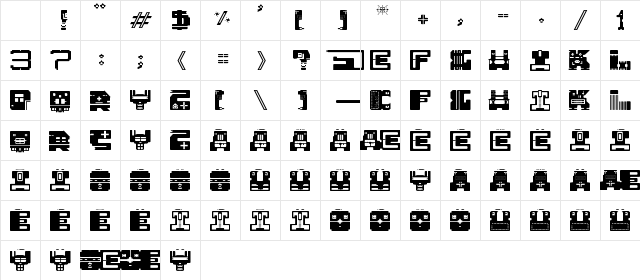
AFT1 Heterodoxa Regular
Designer: neurone error
Design Context for AFT1 Heterodoxa
AFT1 Heterodoxa is a composed and adaptable typeface that performs quietly and consistently across a wide range of design contexts.